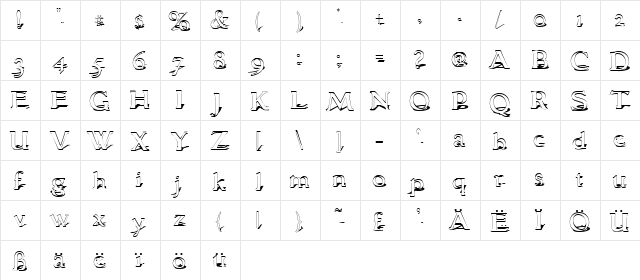
GranthamShadow Roman Font Preview
GranthamShadow Roman
Design Context for GranthamShadow Typeface
GranthamShadow is built around its visual character rather than neutral utility — its distinctive forms are designed to make an impression at display sizes.
Font Pairing: Pair with a clean neutral sans-serif for body copy to let GranthamShadow's character lead without overwhelming the composition.
Pro Tip: Use GranthamShadow exclusively at display sizes — it was designed to be seen, not read at length. Let a neutral companion handle body copy.